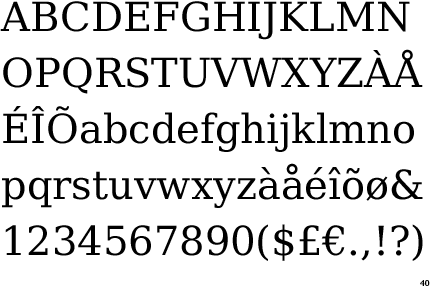
One of a set of freely-distributable fonts commissioned by the Gnome Foundation.
An ideal Companion to the fonts Vera Sans Mono and Vera Sans.
Year: 2003
Publisher: Gnome